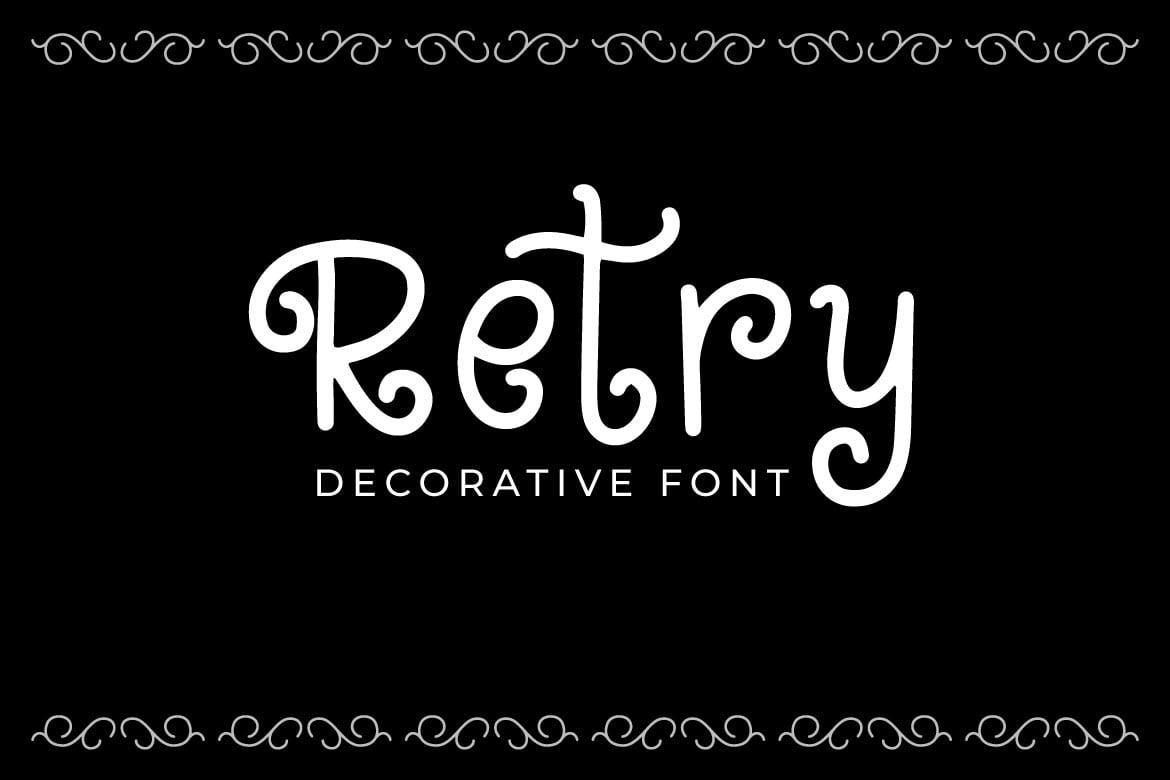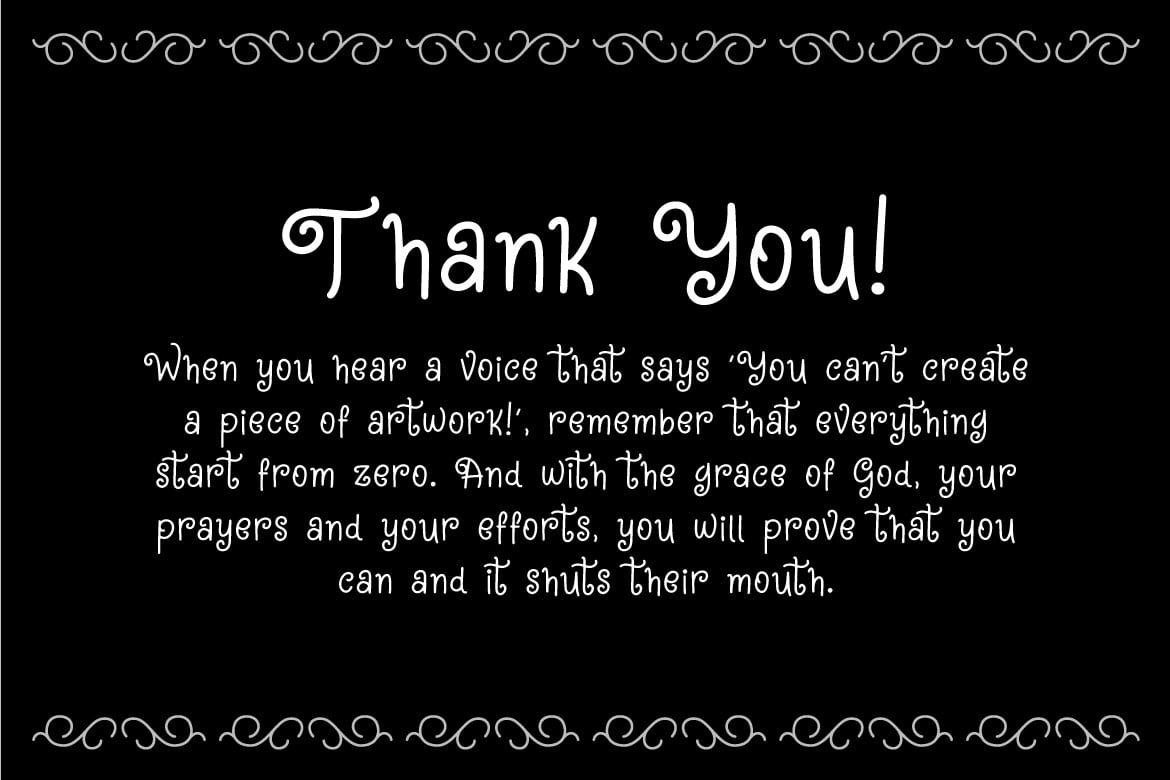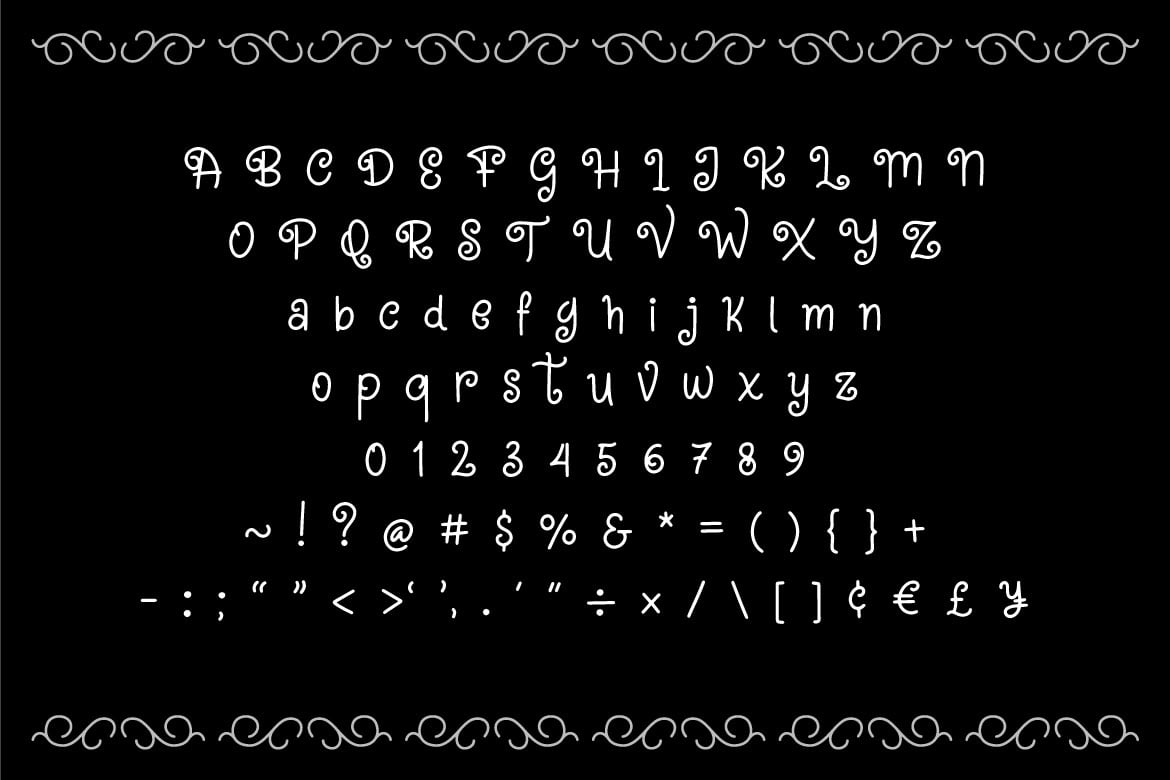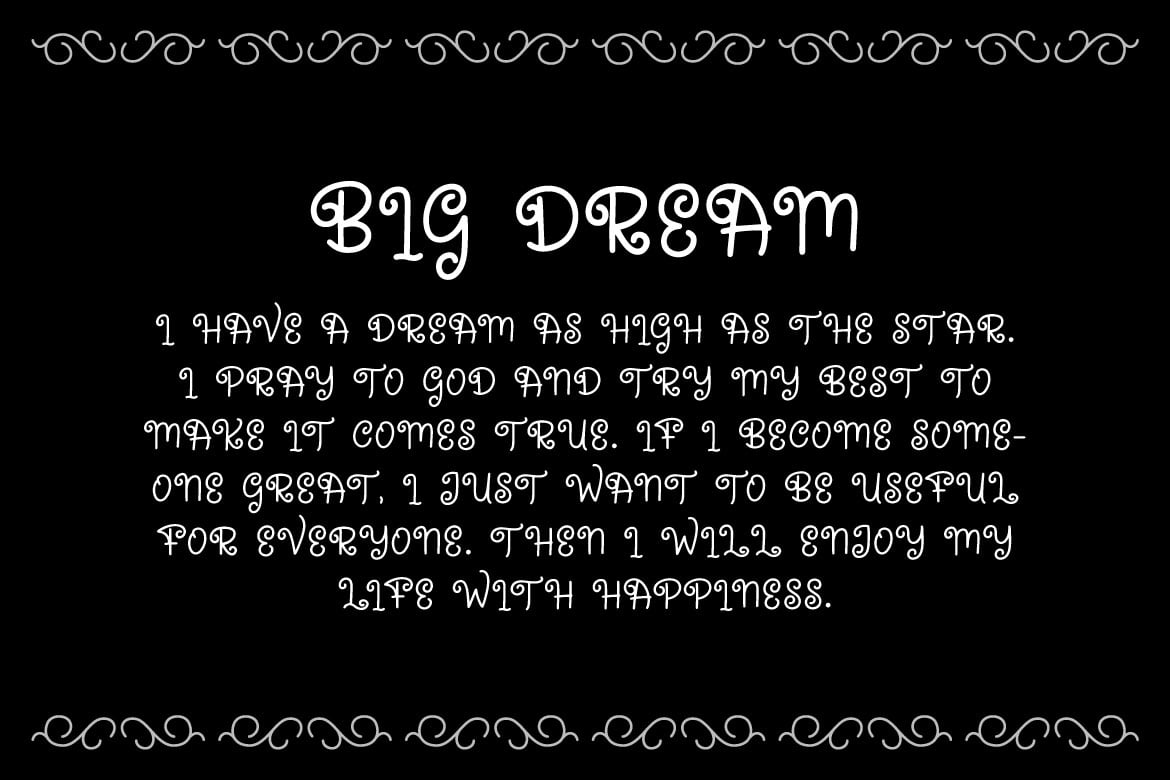
Retry – Fantasy Decorative Font
Hello! RETRY is a fantasy decorative font with curly style.
Anthony can be used in any works such as children book, flyer, book title, advertisement, social media content, logo and many more.